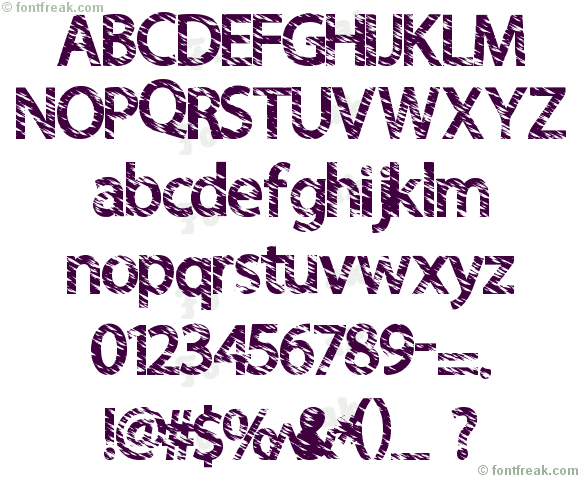
QuickCut
Introducing the QuickCut font by Xerographer Fonts, a striking display typeface that captures attention with its unique design. This font falls into the decorative category, characterized by its artistic flair and bold, expressive strokes. QuickCut features a rugged, textured appearance, giving it a handmade quality that sets it apart from conventional typefaces. The varying stroke weights and deliberate irregularities add a dynamic feel, making it perfect for projects that require an element of creativity.
The QuickCut font is ideal for a variety of applications. Its eye-catching style makes it a fantastic choice for movie posters, where bold typography can enhance the visual impact. Additionally, it works well for restaurant menus, particularly those seeking to convey a casual or eclectic vibe. Wedding invitations can also benefit from QuickCut's artistic nature, providing a unique touch that reflects the couple's personality. Furthermore, this font is suitable for social media graphics, allowing content creators to stand out in a crowded digital landscape.
In conclusion, the QuickCut font stands out due to its distinctive style and adaptability, making it a valuable addition to any designer's toolkit. With its free download option, this font invites creatives to explore its potential in various designs. Whether for print or digital platforms, QuickCut is sure to leave a lasting impression and breathe life into your projects.